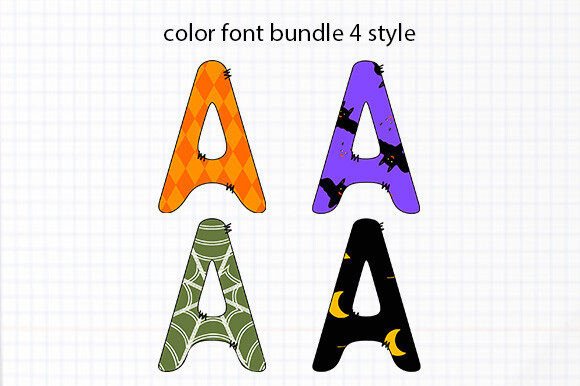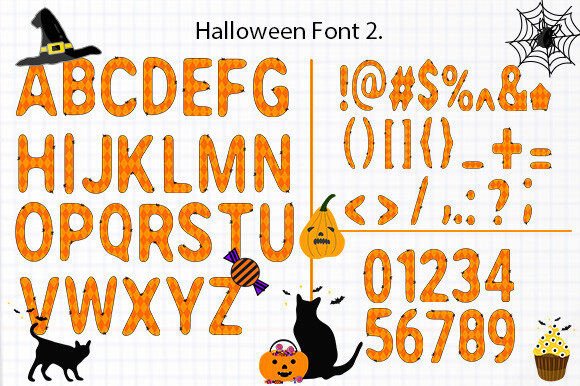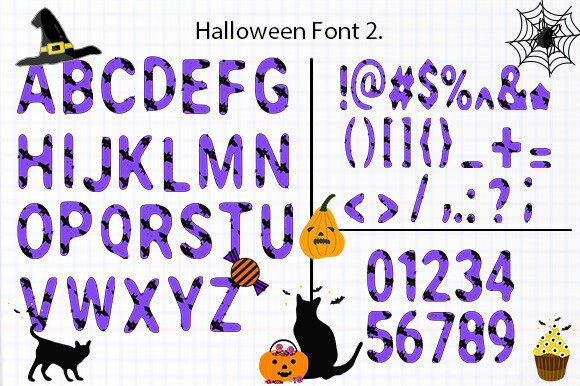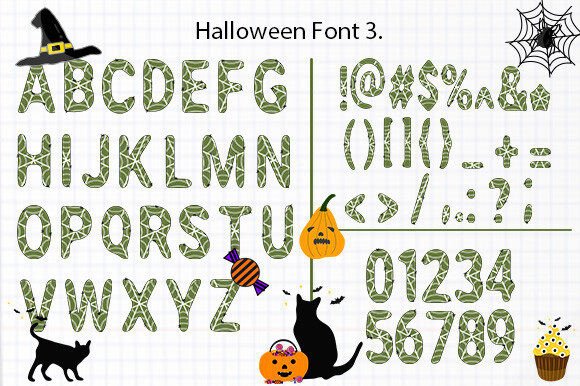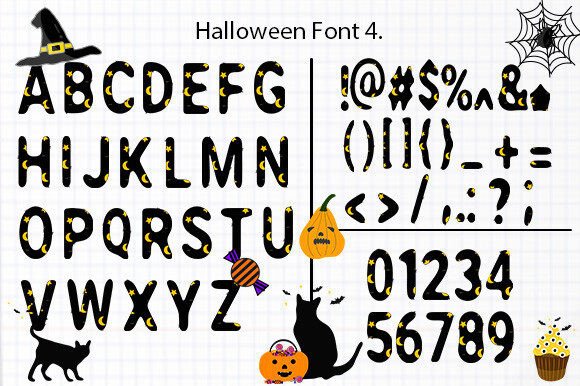
Unleash the Magic of Halloween with the Spooktacular Halloween Pumpkin Font
As the spookiest time of the year approaches, designers and crafters are on the lookout for the perfect font to capture the essence of Halloween. Look no further than the delightfully playful and intricately detailed Halloween Pumpkin font. This unique and whimsical font is infused with the vibrant colors of the season, making it an excellent choice for any Halloween-themed project.
A Font that Embodies the Spirit of Halloween
The Halloween Pumpkin font is designed to transport you and your audience to a world of spooky fun and eerie excitement. Its playful and intricate details are reminiscent of the season’s iconic symbols, such as jack-o’-lanterns, bats, and spiders. Whether you’re creating a spine-chilling horror design or an endearingly cute creation, this font is sure to add a touch of magic to your work.
Unique Features of the Halloween Pumpkin Font
So, what sets the Halloween Pumpkin font apart from other fonts? Here are a few of its standout features:
- Unique Halloween colors: The font comes with a range of vibrant colors that are synonymous with Halloween, including orange, black, and purple.
- Intricate details: The font’s intricate details, such as the pumpkin’s textured surface and the spider’s web-like patterns, add depth and visual interest to your designs.
- Playful and whimsical: The font’s playful and whimsical design makes it perfect for creating eye-catching and engaging designs that will leave a lasting impression.
The Halloween Pumpkin font is versatile and can be used for a wide range of design projects, including:
- Halloween-themed invitations: Create spooky and inviting invitations for Halloween parties, trick-or-treat events, or haunted house attractions.
- Social media graphics: Add a touch of Halloween magic to your social media graphics, such as Facebook posts, Instagram stories, or Twitter headers.
- Horror design projects: Use the font to create spine-chilling horror designs, such as movie posters, book covers, or video game artwork.
- Crafting projects: The font is also perfect for crafters who want to add a personal touch to their Halloween-themed crafts, such as pumpkin carvings, Halloween cards, or DIY decorations.
Tips for Using the Halloween Pumpkin Font
To get the most out of the Halloween Pumpkin font, here are a few tips:
- Experiment with different colors: While the font comes with a range of Halloween colors, feel free to experiment with different color combinations to create a unique look.
- Mix and match with other fonts: Combine the Halloween Pumpkin font with other fonts to create a visually interesting and dynamic design.
- Pay attention to font size: Make sure to adjust the font size to ensure that your design is clear and easy to read.
The Halloween Pumpkin font is a must-have for designers and crafters who want to create spooky and engaging designs that capture the essence of Halloween. Its unique and whimsical design, combined with its intricate details and vibrant colors, make it an excellent choice for any Halloween-themed project. So, why wait? Unleash the magic of Halloween with the Halloween Pumpkin font and see how it breathes life and dynamism into your creative work.
Whether you’re a seasoned designer or a crafter looking for a new font to add to your collection, the Halloween Pumpkin font is sure to delight. So, go ahead and get creative, and let the magic of Halloween inspire your next design project!